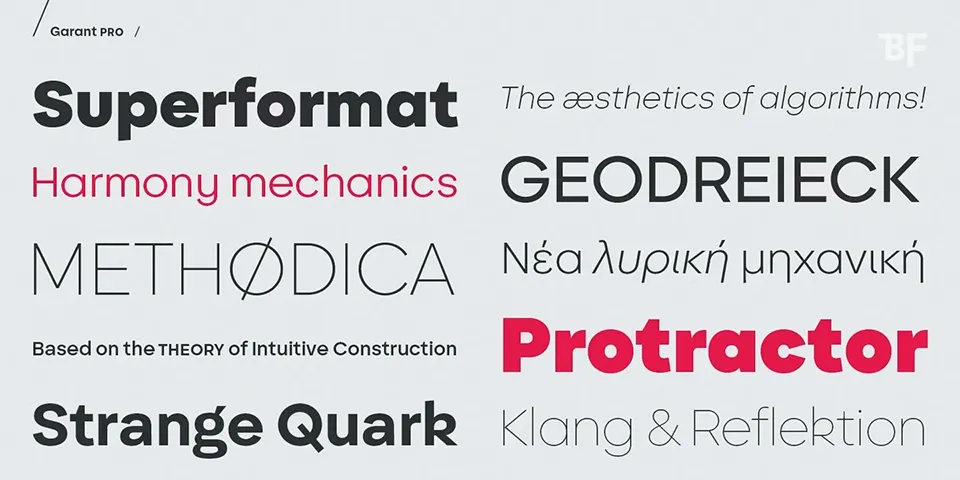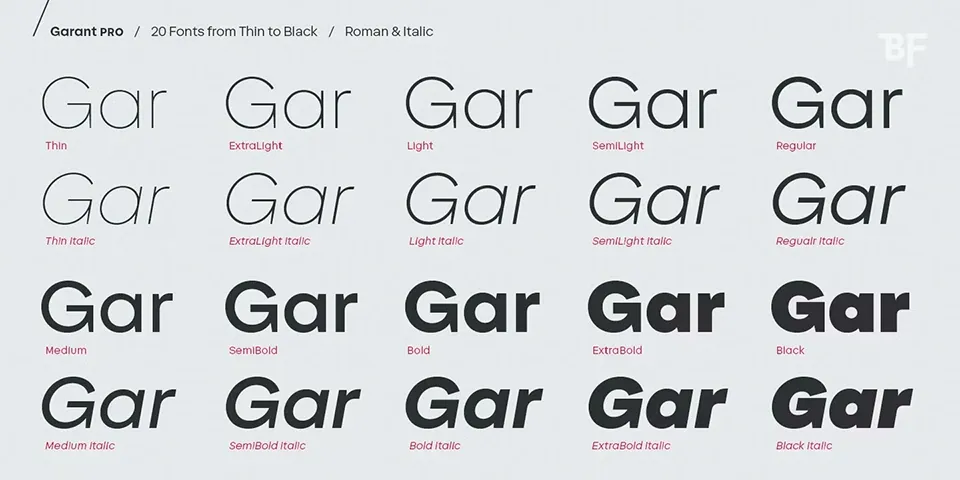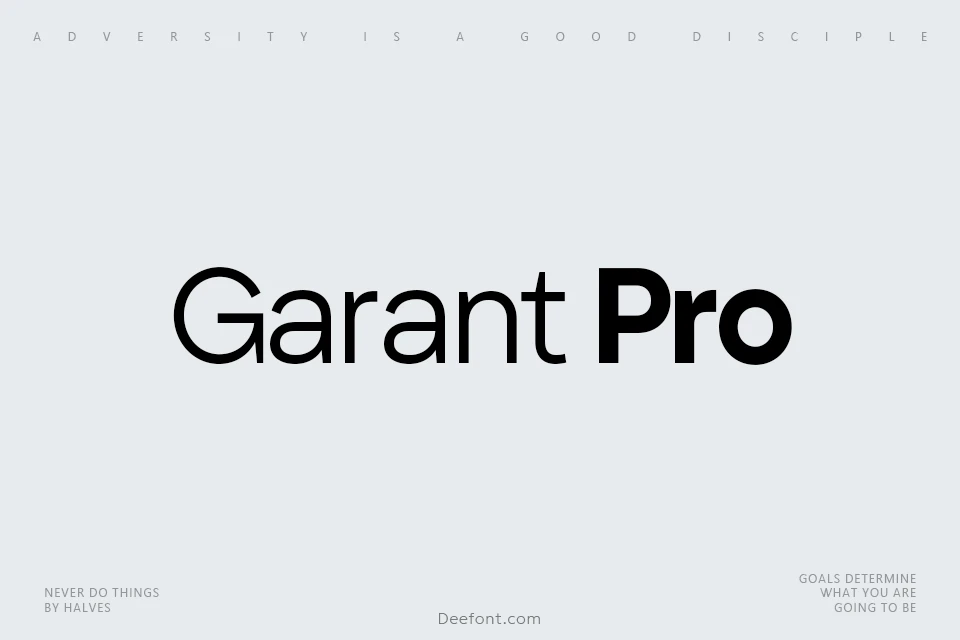
BF Garant Pro Font Family
The BF Garant Pro Font Family is a dynamic geometric sans serif typeface designed for versatility and contemporary appeal. It features a strict geometric architecture balanced with open counters, tapered spurs, and diagonal cut ascenders and descenders, resulting in an open and lively character while retaining geometric precision. With 10 weights, matching italics, and a wide range of OpenType features-including ligatures, alternates, small caps, and extended language support (Latin, Cyrillic, Greek)-BF Garant Pro Font Family is ideal for branding, packaging, editorial design, and modern logotypes. Its large x-height and humanist-inspired alternates ensure high legibility and timeless style, making it a powerful tool for diverse typographic applications.